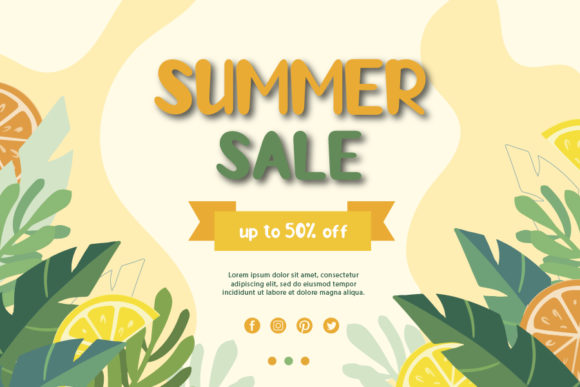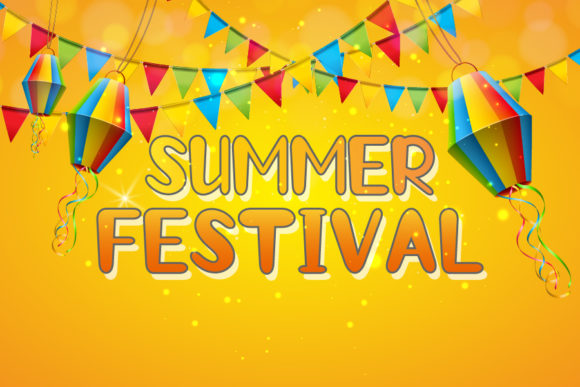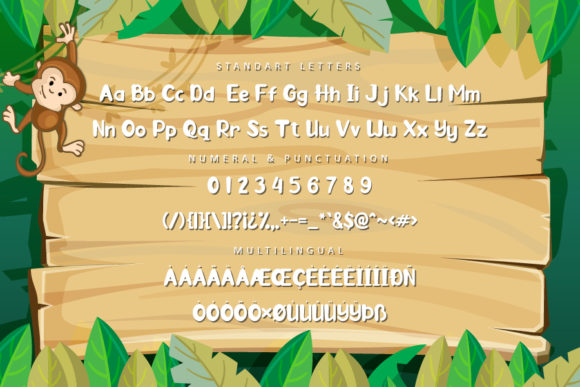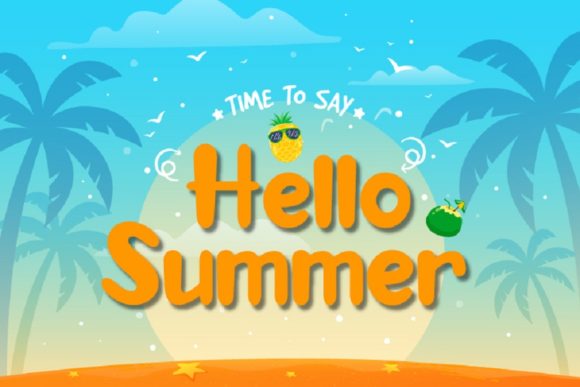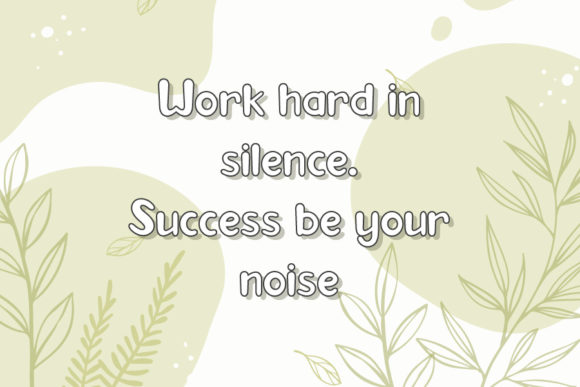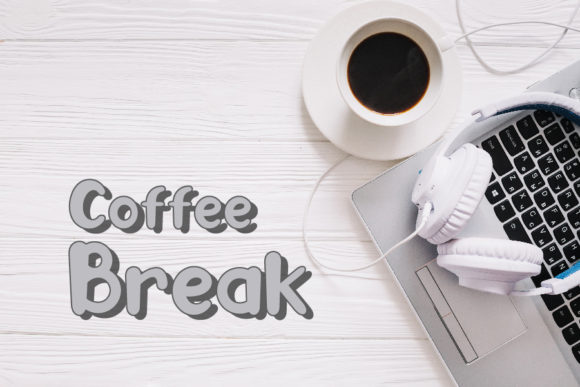
Introduction to Deep Jungle Font
Deep Jungle is a fun and casual display font.
Cartoon like and friendly, this font will bring joy to any design you wish to create .
Key Features of Deep Jungle Font
Why Choose Deep Jungle Font?
Deep Jungle Font offers exceptional quality and versatility, making it a valuable addition to your design toolkit. Whether you’re creating for personal projects or commercial use, Deep Jungle Font delivers professional results.